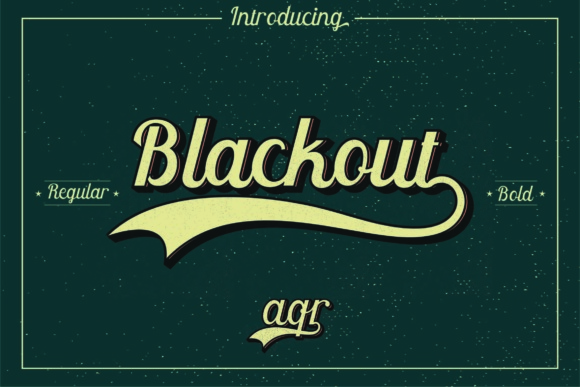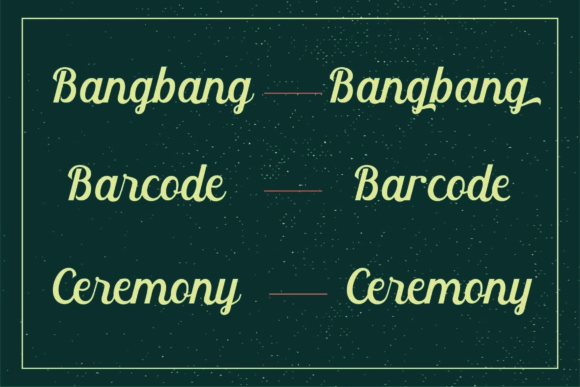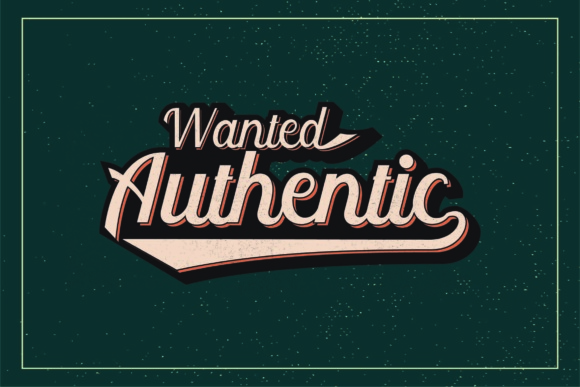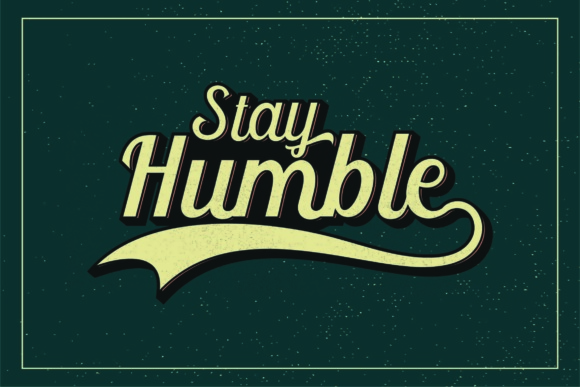
Blackout Font
About Blackout Font
Blackout is a fresh and modern logotype font, ideal for use in any design that needs a standout typographic focal point. This font is suited to vintage designs, but works well in modern, hip projects.